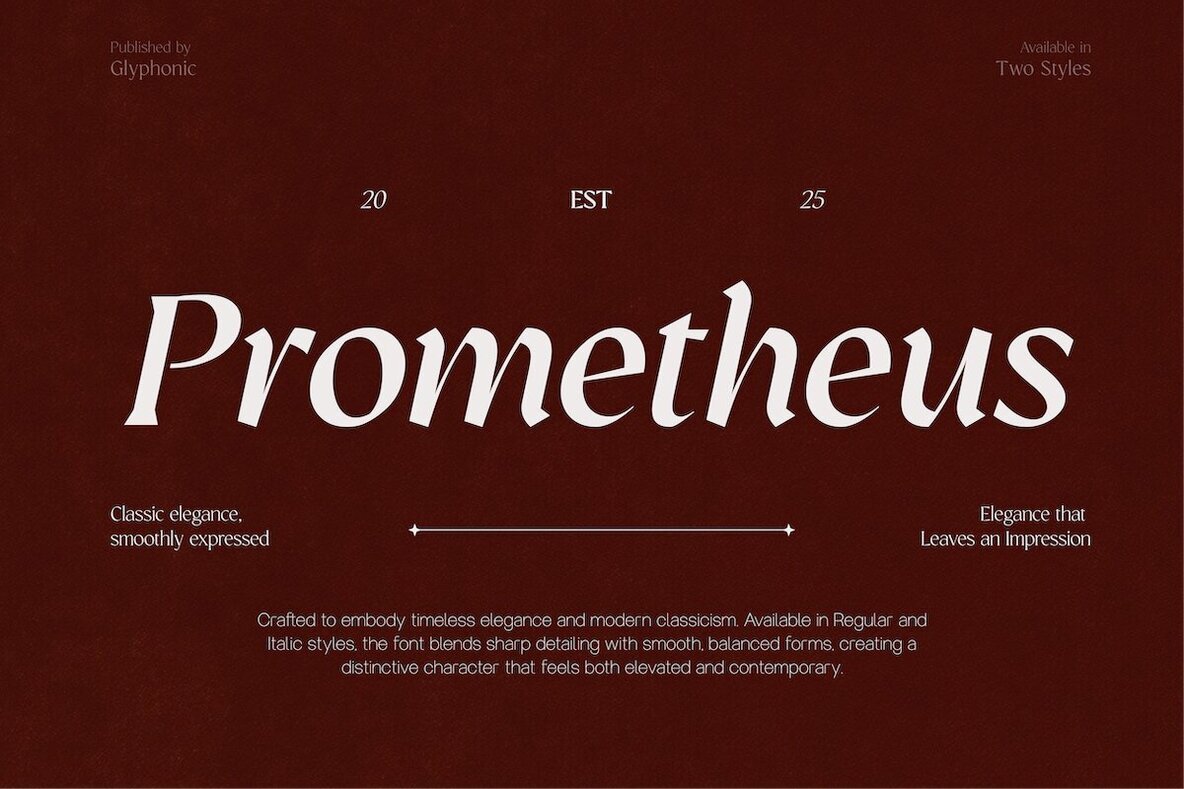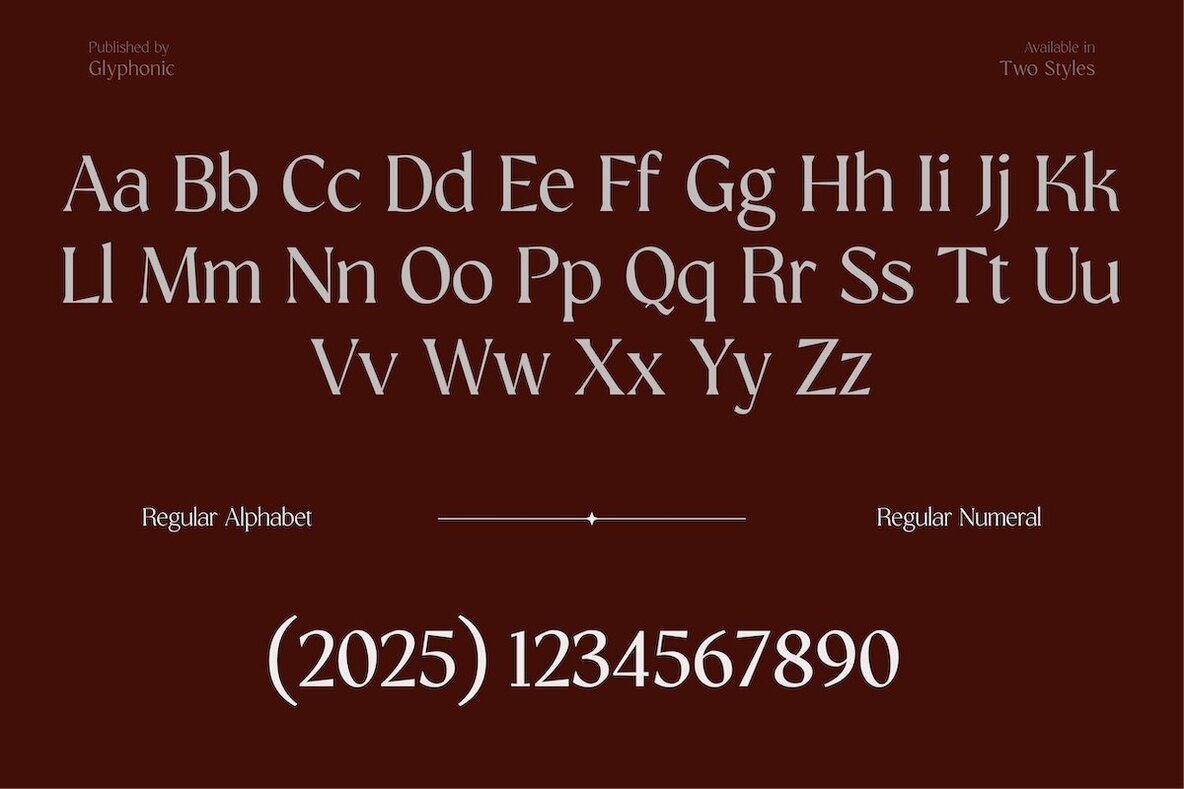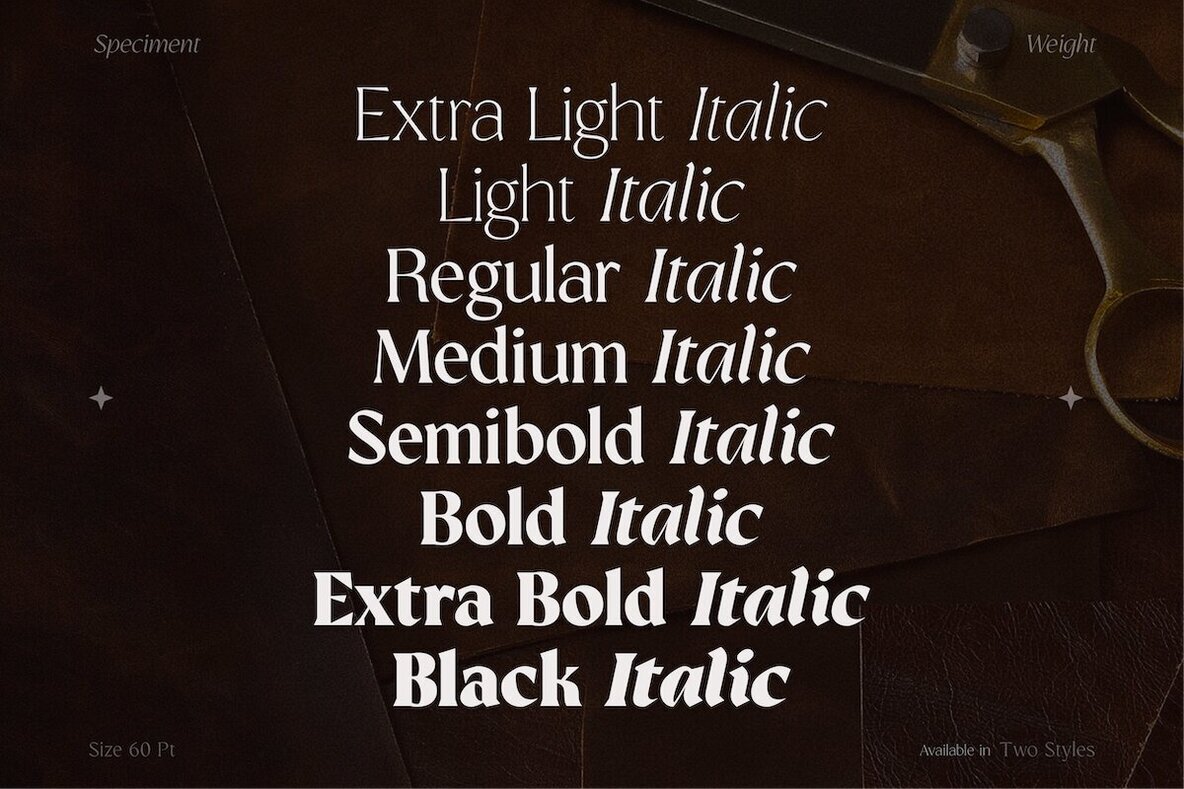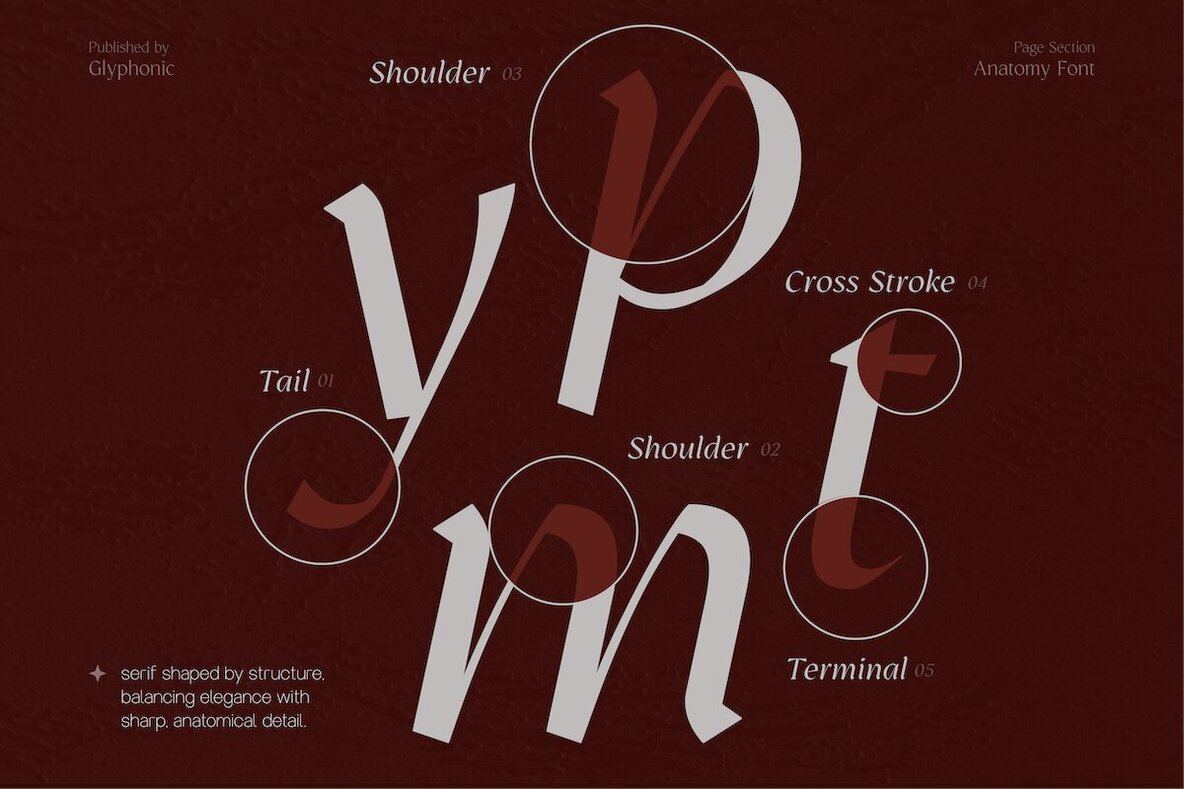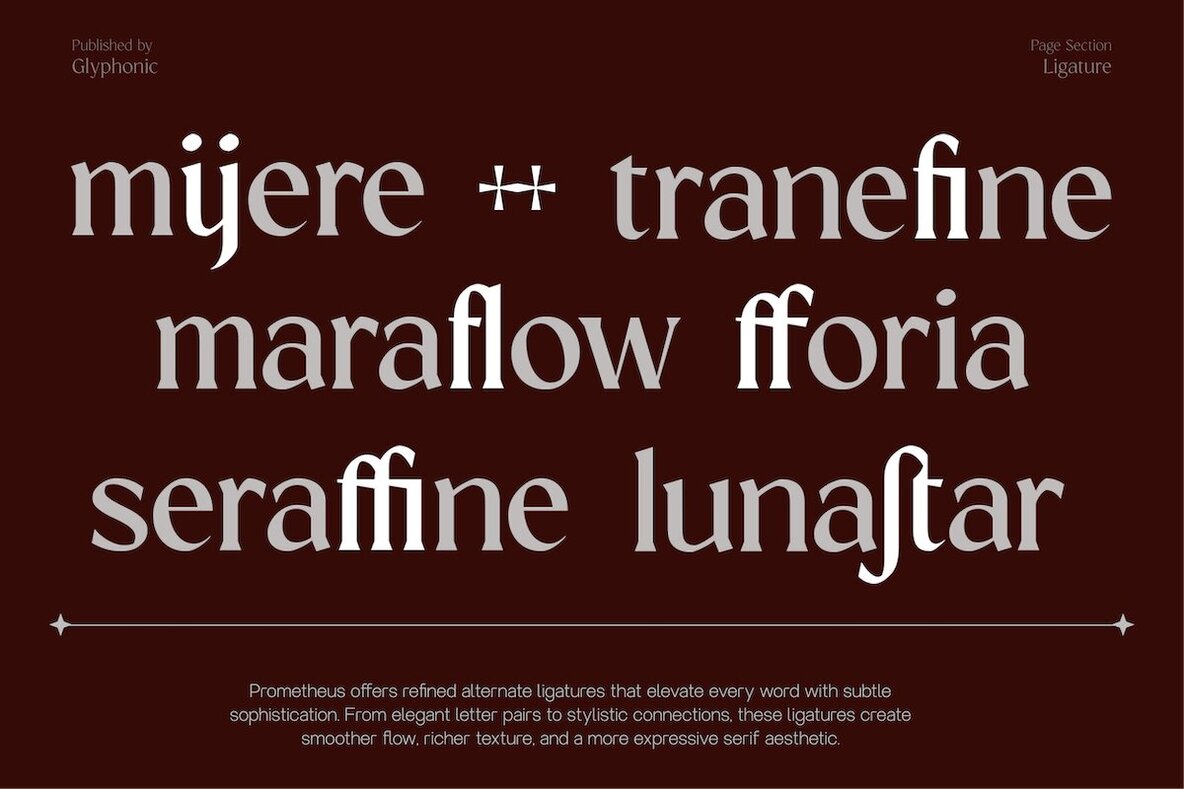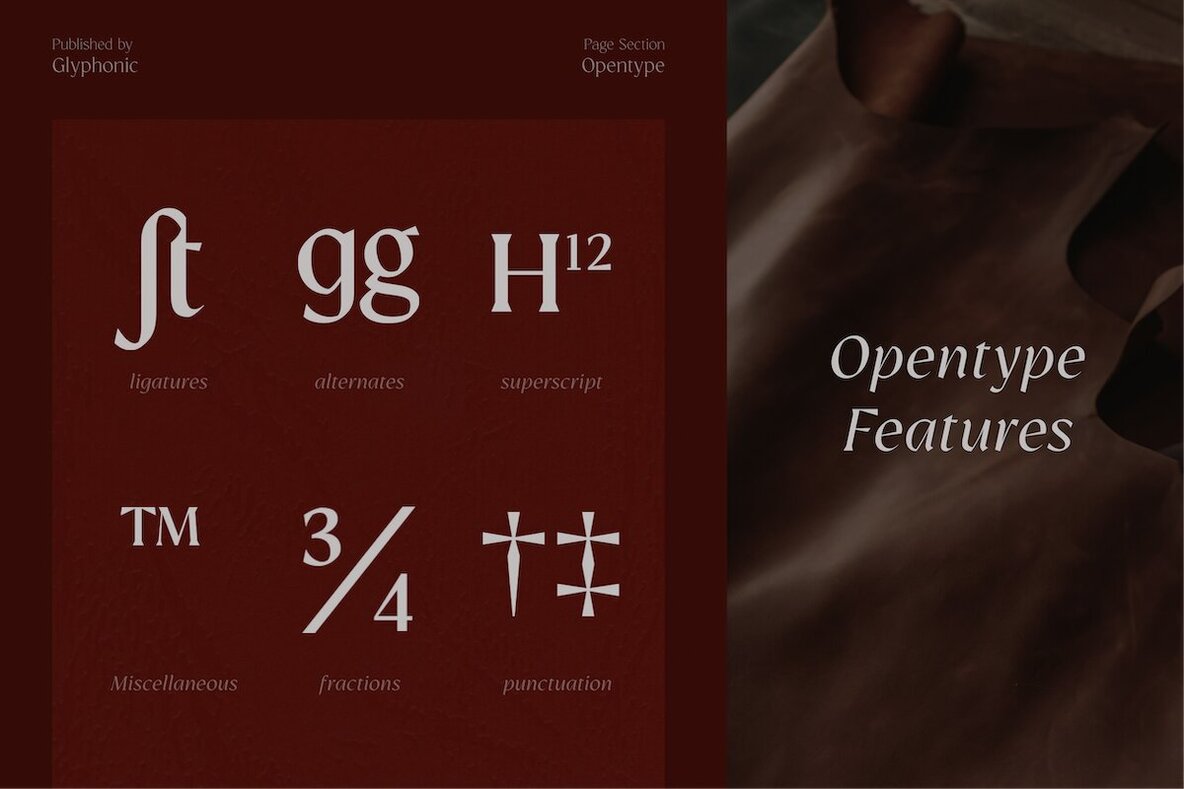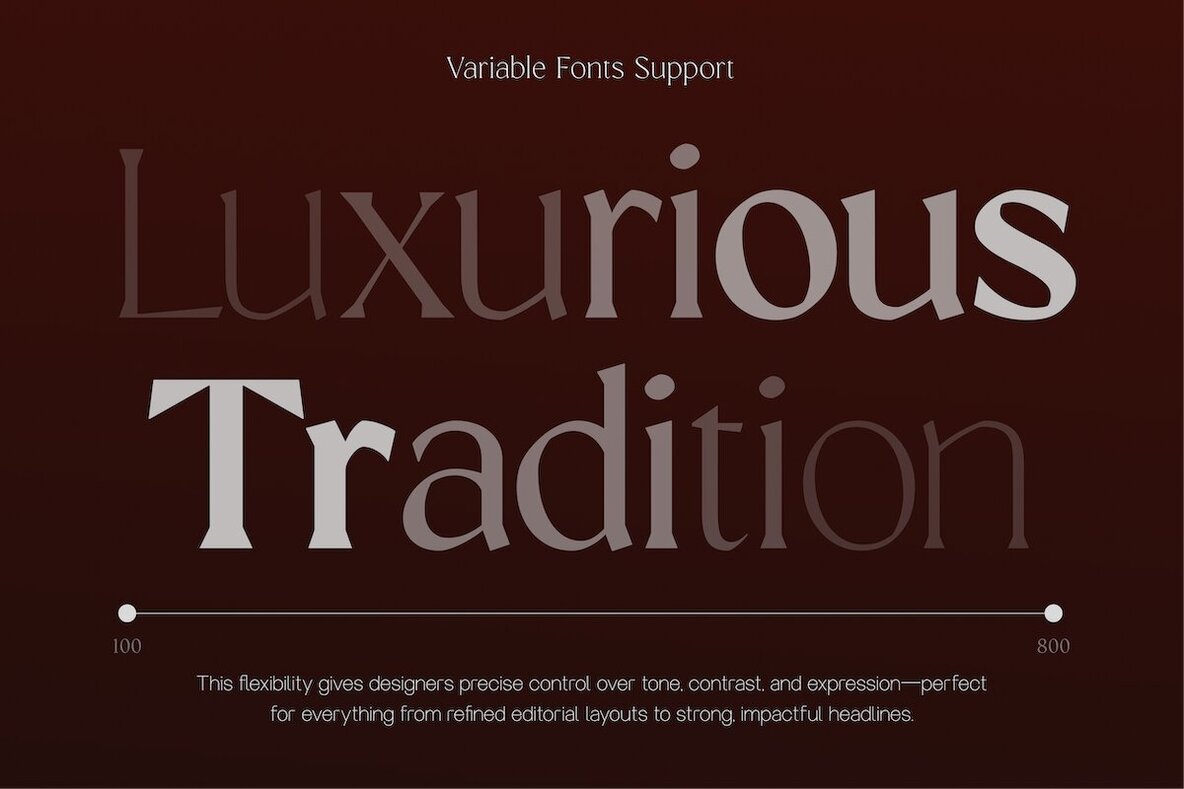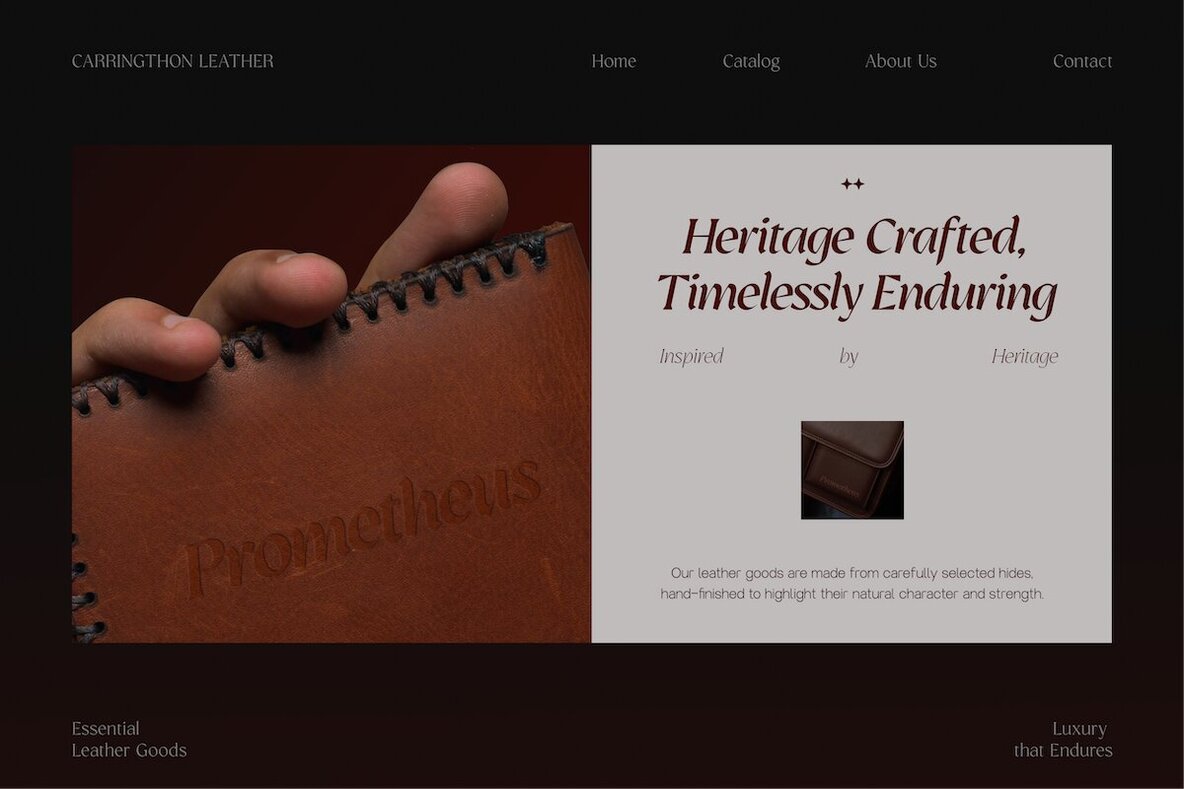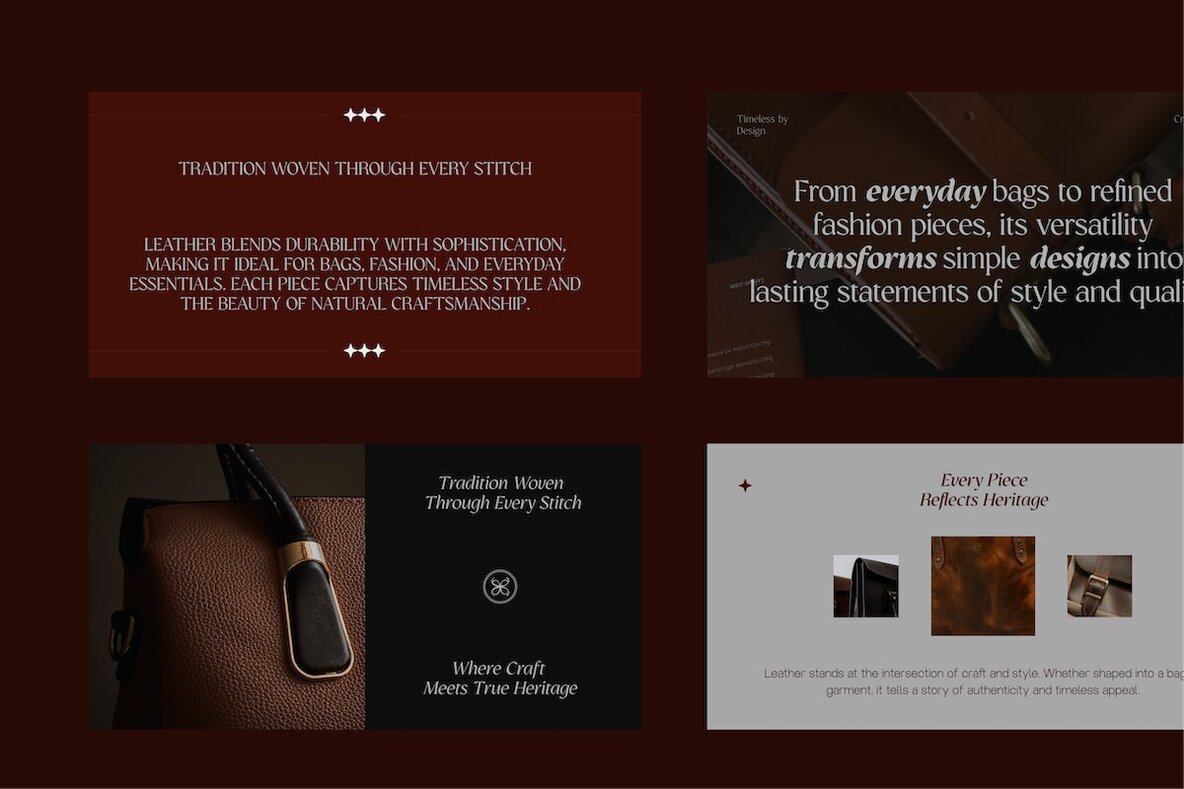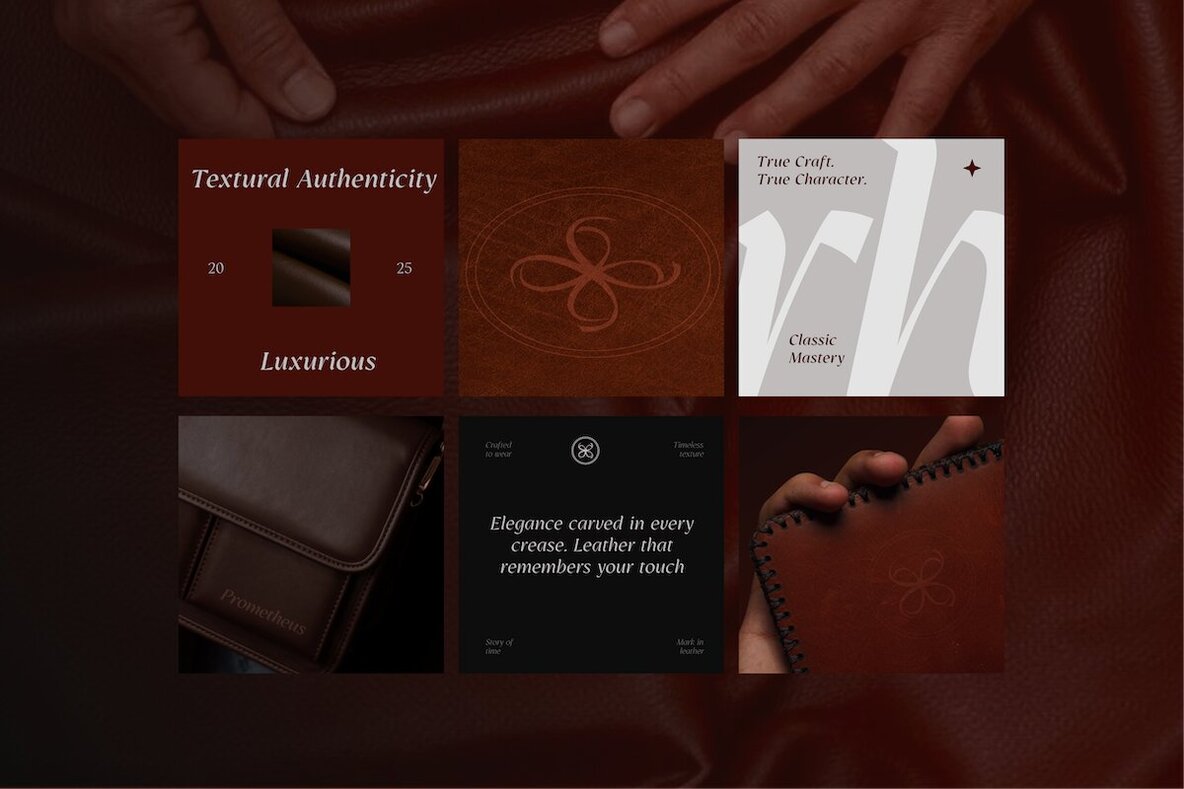
GC Prometheus Font
GC Prometheus is a serif typeface that marries classical influences with precise, balanced design. Its sharp detail and clear proportions provide a professional appearance that suits both display and body text applications. The combination of traditional forms and modern clarity ensures strong readability across digital and print environments. With prominent serif structures and attention to detail, this typeface brings a sense of heritage and integrity to every project. GC Prometheus excels in branding, editorial design, luxury packaging, and identity systems requiring a sophisticated yet distinct visual approach. The thoughtful construction of each letterform, featuring subtle contrast and harmonious flow, supports both contemporary and classic concepts. Refined elegance and versatility make it a key choice for designers prioritizing legibility and style in their typography selections.GC Prometheus Serif Family: Timeless Typography With Refined Presence